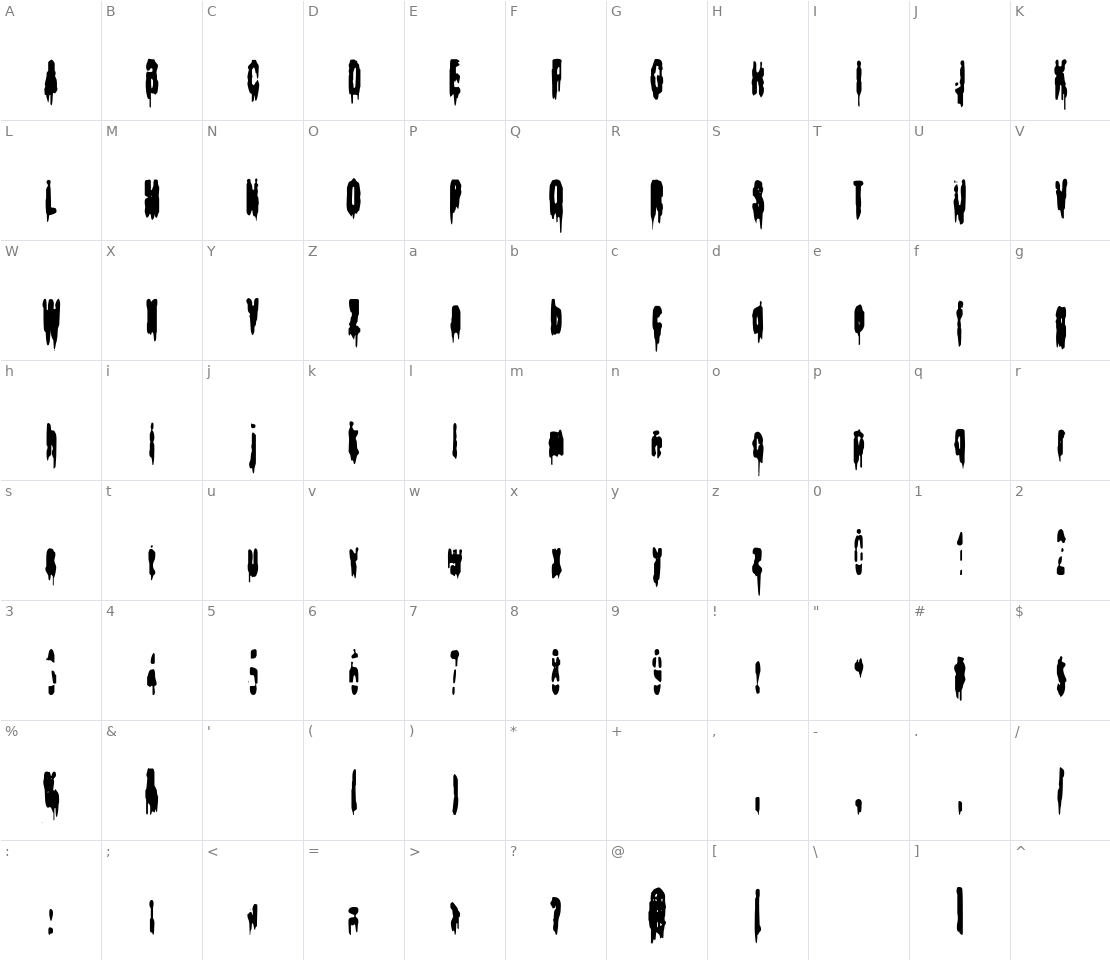
Bodybag
Bodybag is a condensed horror display face from MR.FISK FONTS with dripping, blood-streaked letterforms that lean fully into the macabre. The narrow characters feel claustrophobic and unsettling, with thick runs of liquid pulling downward from each stroke. Built for Halloween flyers, horror titles, and dark-themed posters where you need type that looks like it belongs on a crime scene.